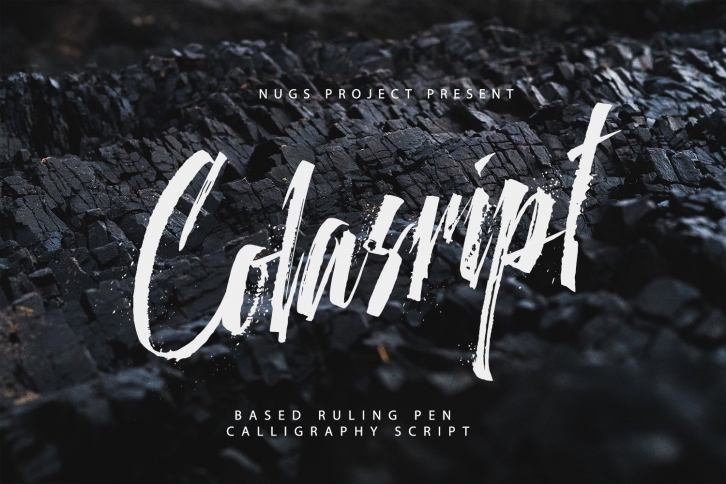
Colascript is a beautiful font that was designed by Nugs Project. It's a great choice for designers and creatives who need such a font. It was released on June 12, 2022 and the file size is 20.88 MB. Colascript may give a more youthful, expressive and casual look to your project. It is a very beautiful, refined, elegant, and high-quality font.